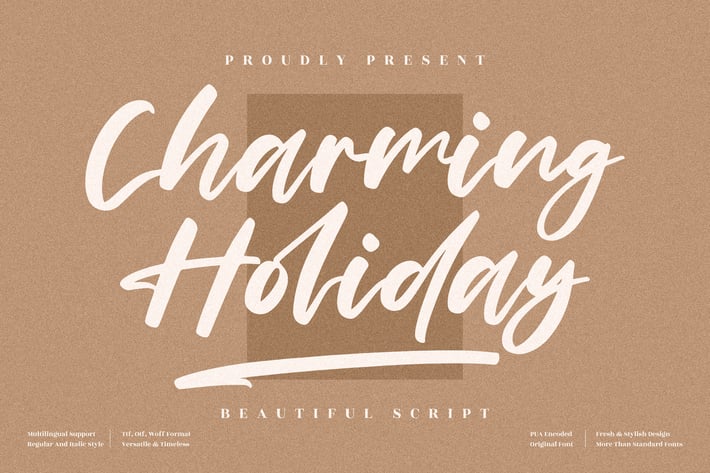
Charming Holiday Handwritten Font
Charming Holiday is a beautiful handwritten script font designed with warm, flowing strokes that feel cozy, friendly, and expressive. Its organic curves and handcrafted personality make it perfect for creatives who want a soft yet stylish handwritten touch. Whether you're crafting seasonal designs or creating heartfelt visuals, this font brings an inviting charm to every layout.
Natural handwritten script style
Smooth, flowing curves with an expressive feel
Soft, warm, and inviting character shapes
Includes Regular & Italic variations
Branding & logo design
Wedding invitations
Holiday-themed designs
Social media quotes
Posters & lifestyle visuals
Product packaging
Greeting cards
Soft, expressive, and full of warmth — Charming Holiday brings heartfelt handwritten beauty to every project.